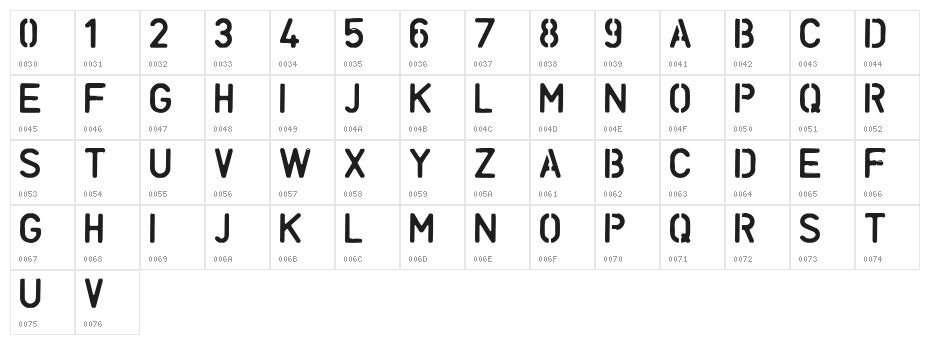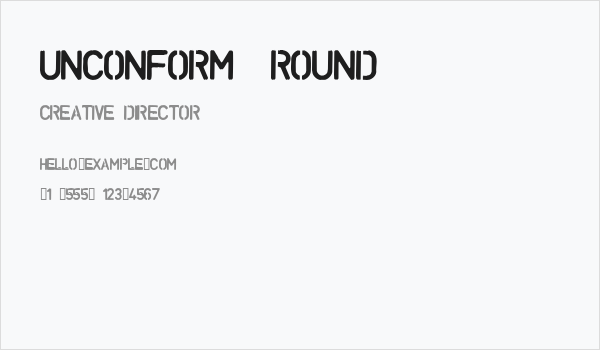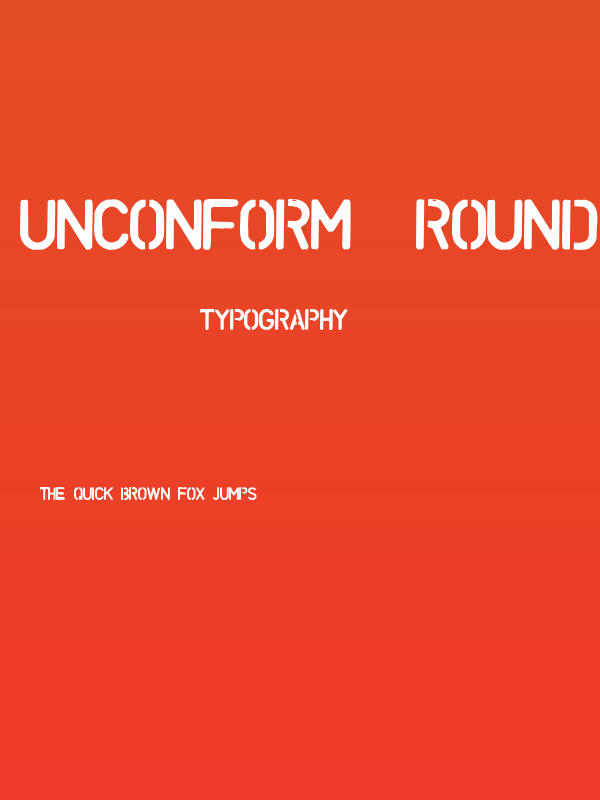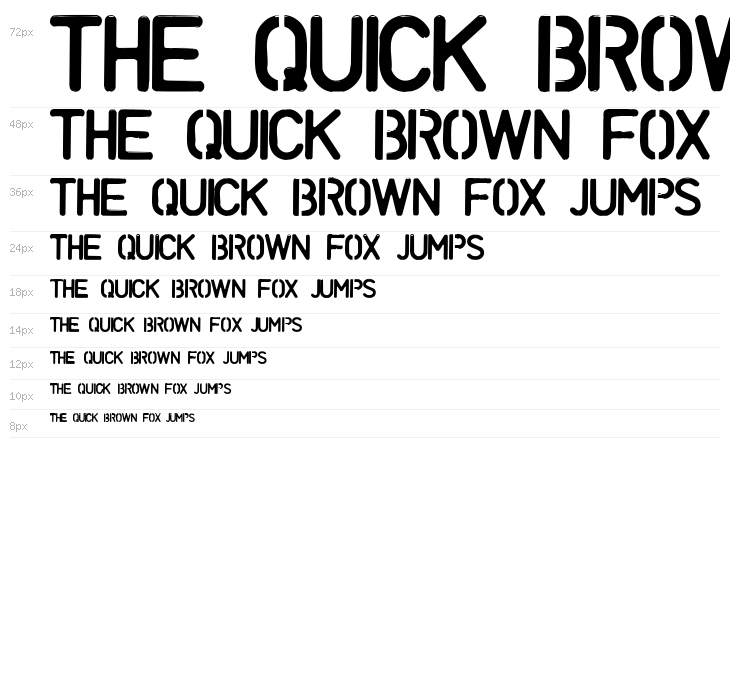
UNCONFORM ROUND Font
UNCONFORM ROUND Description
This font features a bold and rounded style with a distinct stencil-like appearance. The characters are uppercase and numerals, with a geometric structure that gives a modern and industrial feel. The rounded edges soften the overall look, making it suitable for both contemporary and retro-themed designs. The uniformity in stroke width across characters provides a cohesive and balanced aesthetic. The font is particularly effective in creating a strong visual impact, ideal for headlines and display purposes.
Proposed ProjectsIdeal for branding, posters, signage, and any project requiring a bold, impactful typeface.